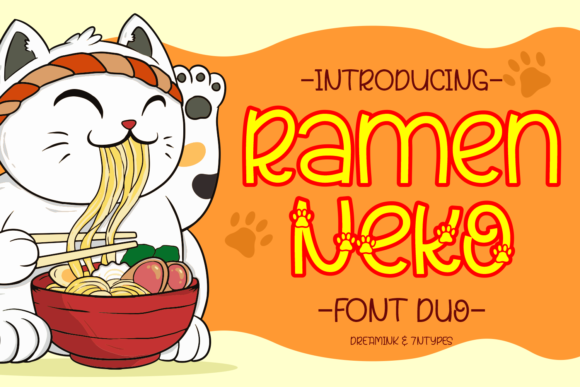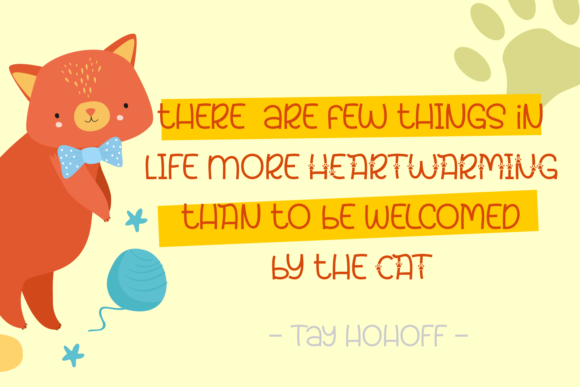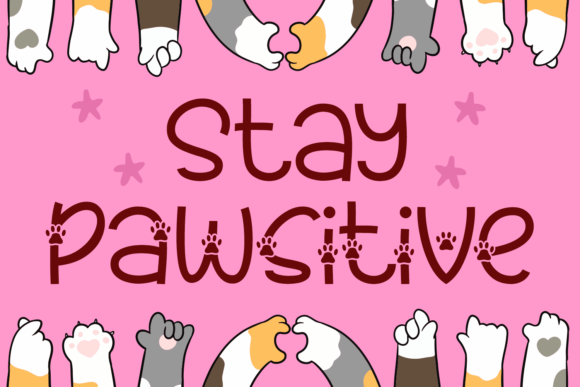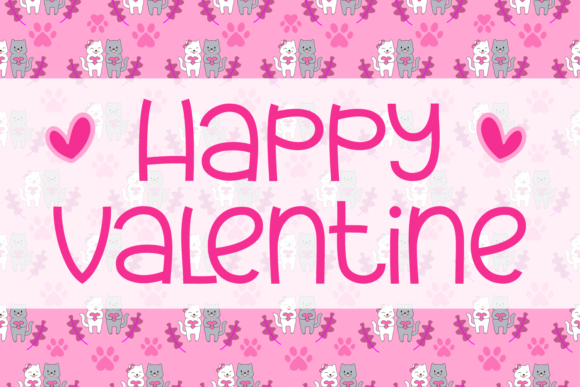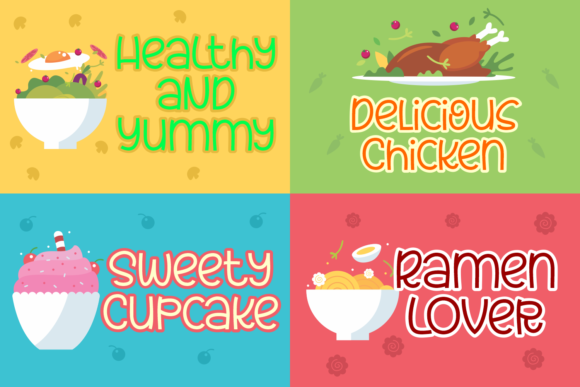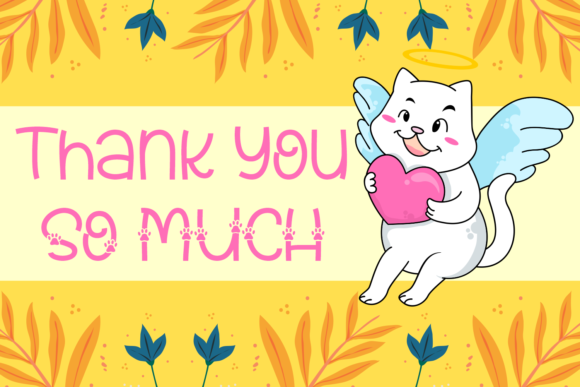
Ramen Neko Font
About Ramen Neko Font
Ramen Neko is a whimsical handwritten font. It features two unique styles that will take your designs to the next level. Get inspired by it’s cat-themed characters and create amazing and cute designs!